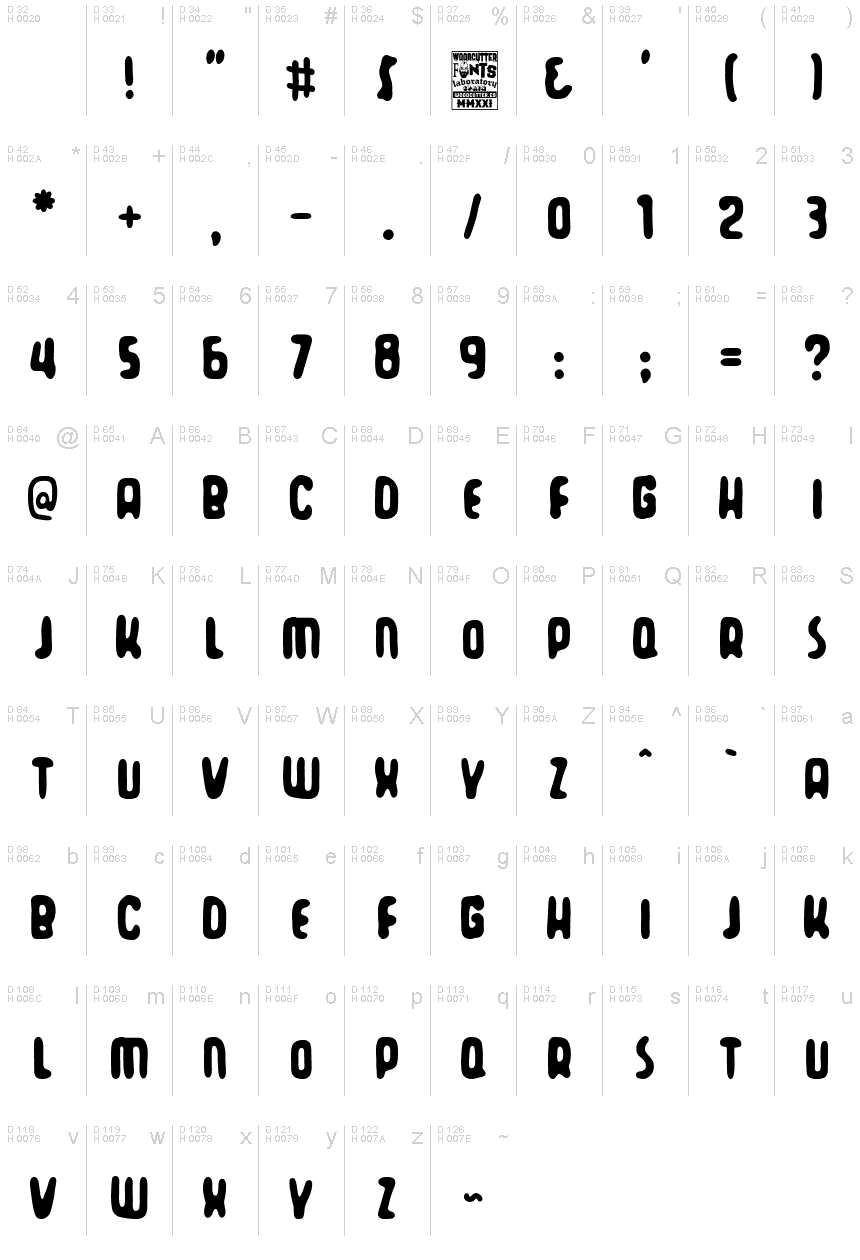
Torrezno's World
Torrezno's World by Woodcutter Manero is the perfect display font for any project that needs a touch of playfulness and whimsy. Its bold, condensed style makes it ideal for headlines, titles, and branding material. The cartoon-inspired design creates a fun and youthful vibe that's perfect for children's books, comic strips, or anything that requires a bit of creativity. With Torrezno's World, you'll be able to convey your message in a unique and eye-catching way. So whether you're designing a website, creating packaging for your product, or writing an article that needs an extra pop of personality – Torrezno's World is the font you've been looking for!